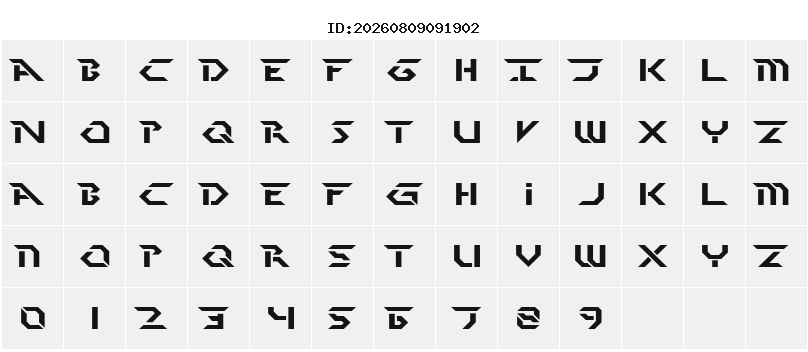
Perfect Dark (BRK) Preview
• Font Name: Perfect Dark (BRK)
• Full Font Name: Perfect Dark (BRK)
• Version: Version 1.40
• PostScript Name: PerfectDark(BRK)
• Character Count: 81
About Perfect Dark (BRK).ttf
Perfect Dark (BRK).ttf is a modern, elegant sans-serif font designed for ultimate readability and visual harmony. Perfect for branding, headlines, web design, and print materials.